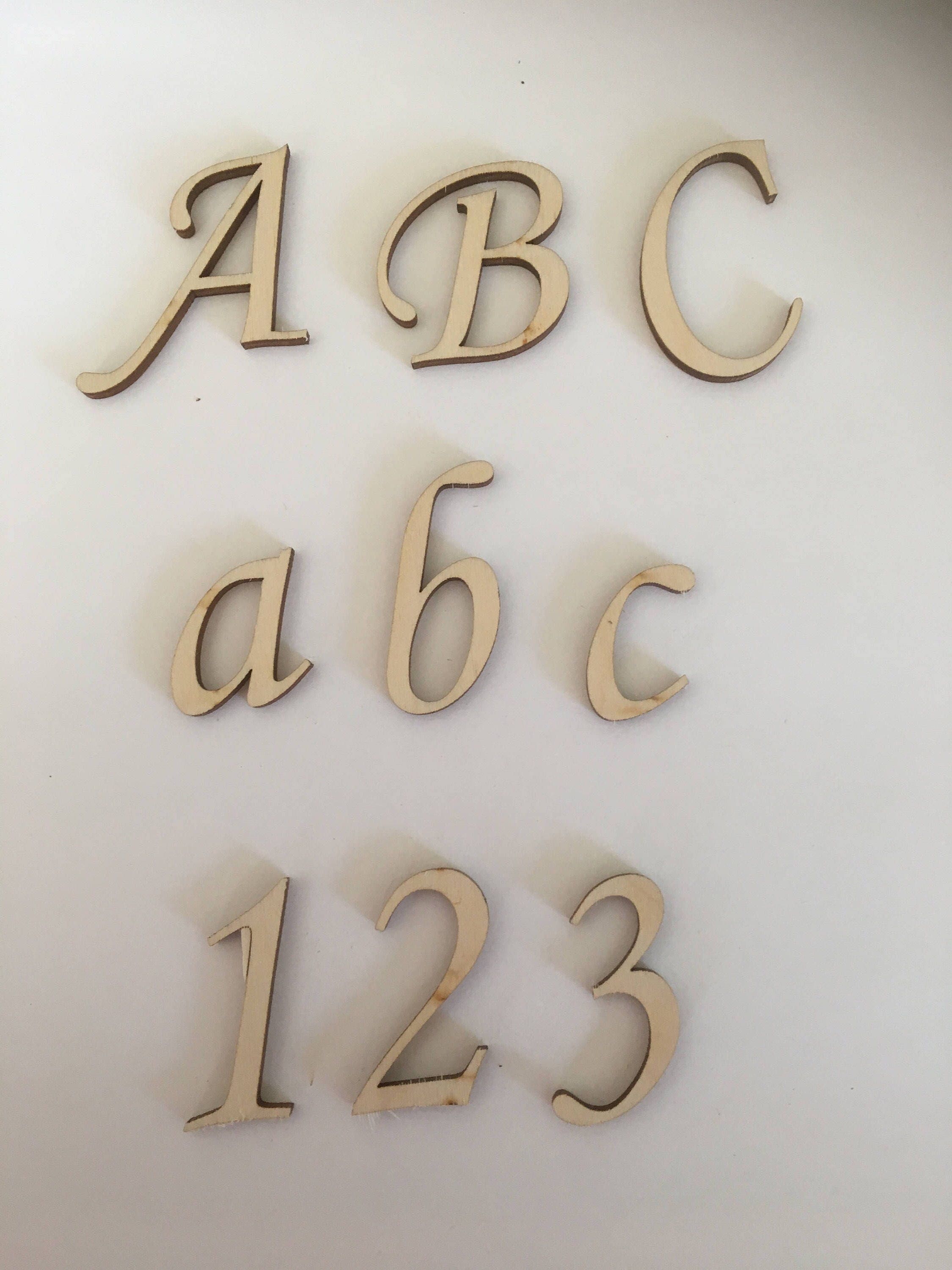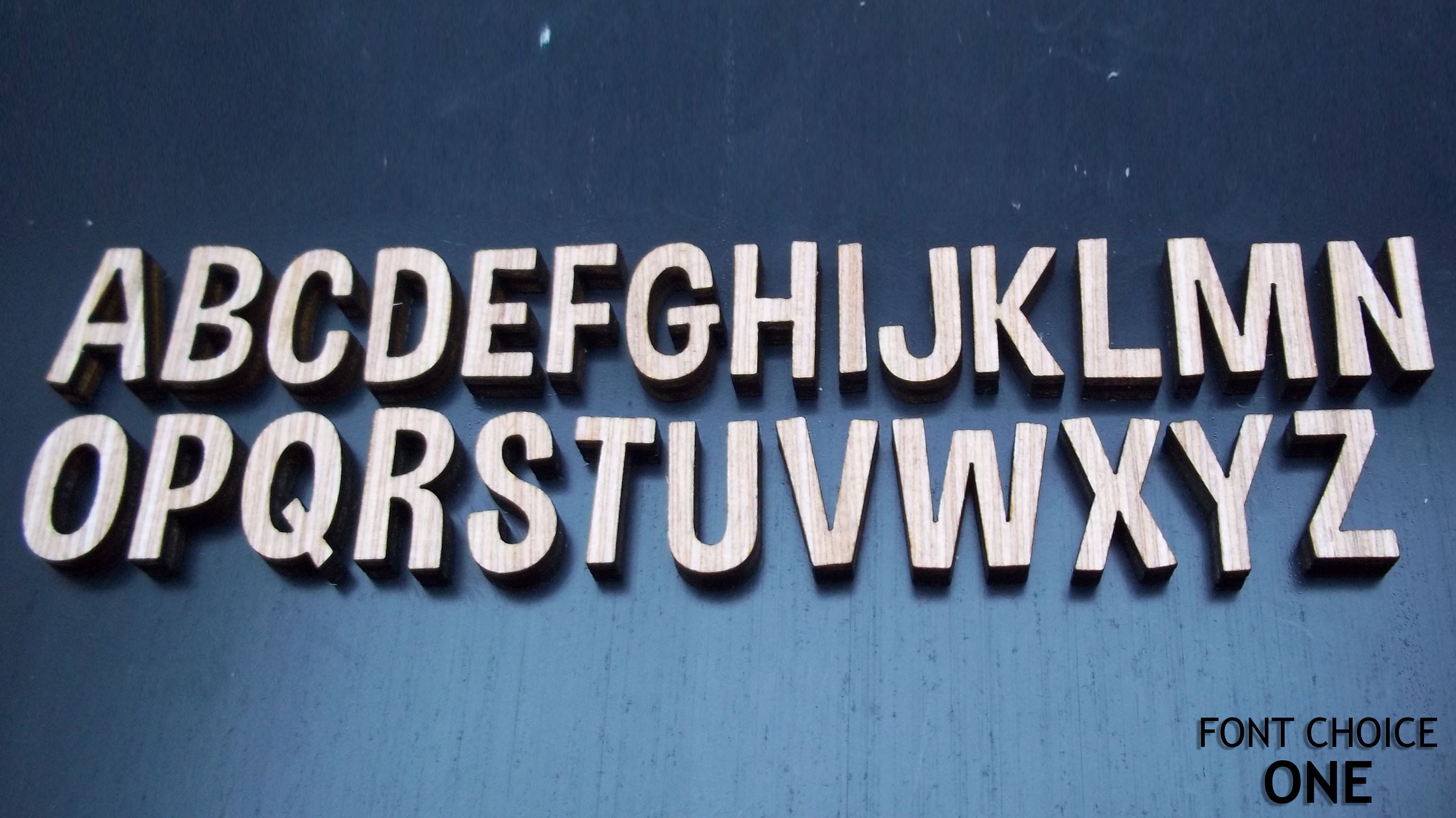
Laser Cut Letters Font . Some good options for laser cut text are arial black, impact, and verdana. Arial black in all caps works best. What is a good font for laser cutting? From stencil fonts to bold, readable typefaces,. Looking for laser cut letters fonts? Small text can appear patchy with area engraving. Are you looking for the best font for laser cutting for wedding and birthday banners? For your most awaited day, you should have. Click to find the best 9 free fonts in the laser cut letters style. Cut letters can fall apart or be fragile. Click to find the best 28 free fonts in the laser cut style. Looking for laser cut fonts? In this post, i want to share my favorite free connected handwriting and script fonts for laser cutting projects with you. Every font is free to download! Every font is free to download!
Cut letters can fall apart or be fragile. Some good options for laser cut text are arial black, impact, and verdana. From stencil fonts to bold, readable typefaces,. What is a good font for laser cutting? In this post, i want to share my favorite free connected handwriting and script fonts for laser cutting projects with you. Looking for laser cut fonts? The best fonts for laser cutting are bold, have an even stroke width, and can be cut without losing internal shapes. Every font is free to download! Click to find the best 28 free fonts in the laser cut style. Small text can appear patchy with area engraving.
Laser Cut Letters Font Looking for laser cut fonts? Small text can appear patchy with area engraving. For your most awaited day, you should have. Arial black in all caps works best. What is a good font for laser cutting? Every font is free to download! Some good options for laser cut text are arial black, impact, and verdana. The best fonts for laser cutting are bold, have an even stroke width, and can be cut without losing internal shapes. In this post, i want to share my favorite free connected handwriting and script fonts for laser cutting projects with you. From stencil fonts to bold, readable typefaces,. Are you looking for the best font for laser cutting for wedding and birthday banners? Cut letters can fall apart or be fragile. Click to find the best 9 free fonts in the laser cut letters style. Click to find the best 28 free fonts in the laser cut style. Looking for laser cut fonts? Looking for laser cut letters fonts?